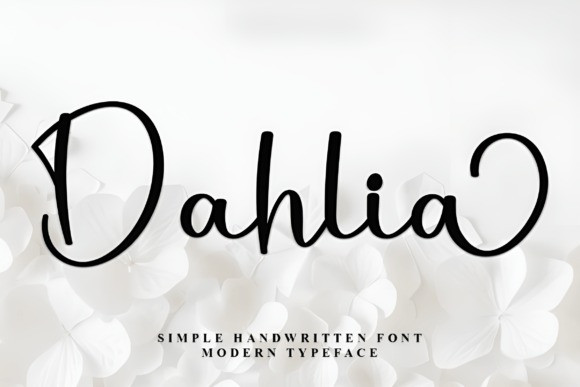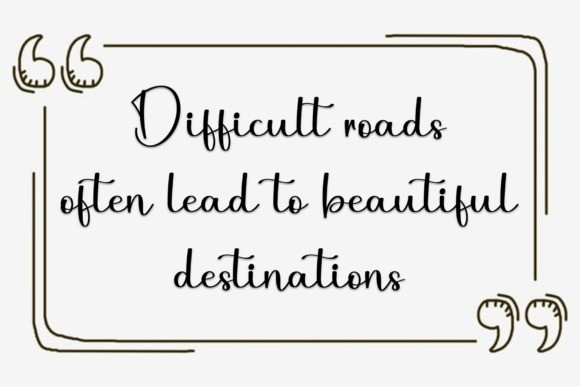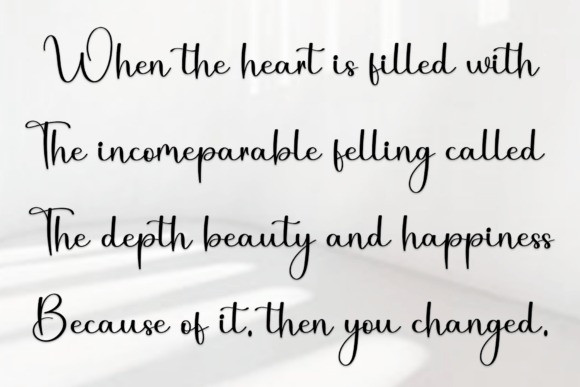
Dahlia Script Typeface
Dahlia Script Typeface is a simple and neat handwritten font that feels personal and easy to read. With its smooth lines and natural flow, it’s perfect for notes, quotes, journals, logos, and casual designs. Whether you’re going for something minimal, cozy, or just want that handwritten touch without the fuss, this font keeps things clear and down-to-earth.